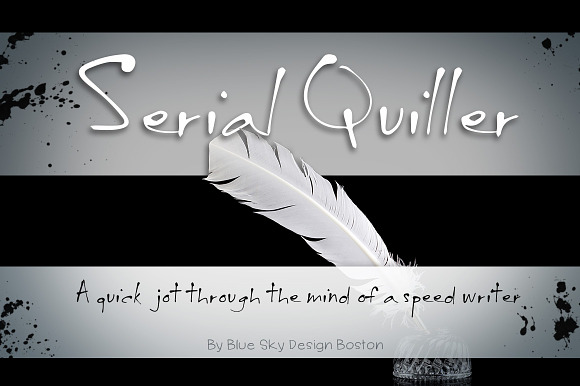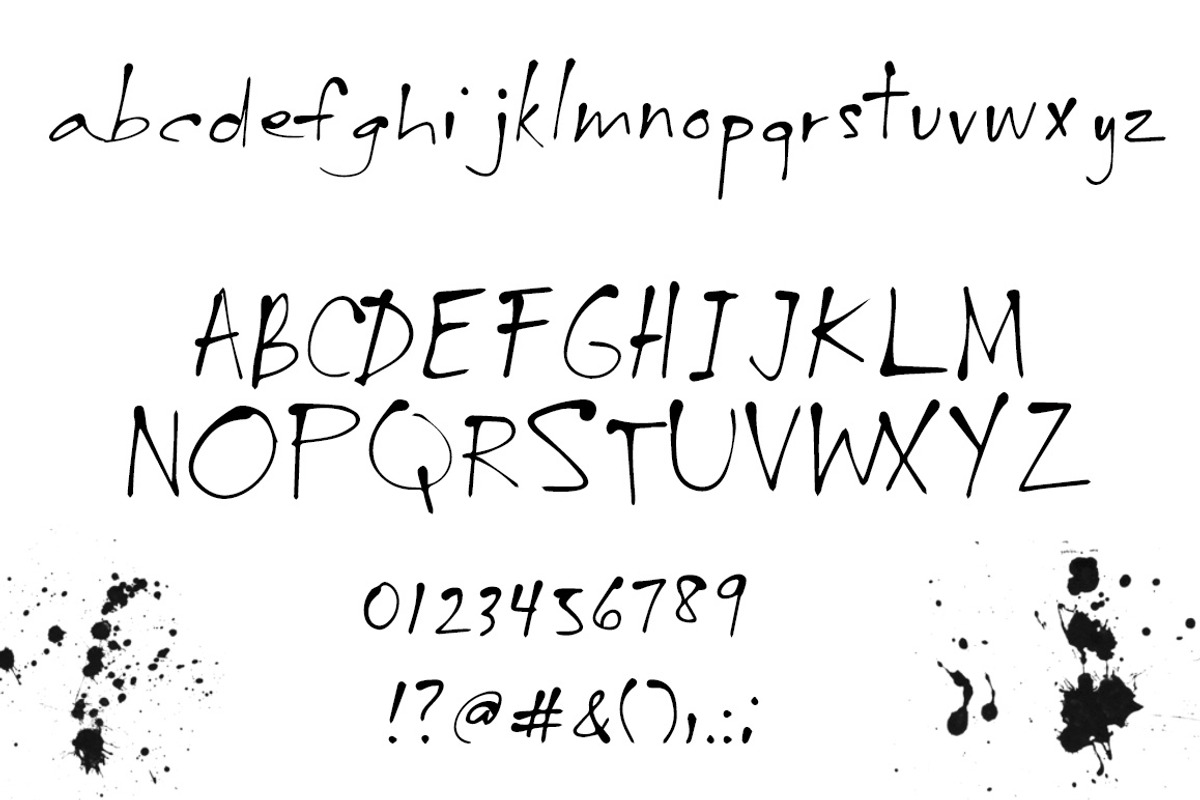
BSD Serial Quiller Font
A quick, handwritten leaky ink font
BSD Serial Quiller Font by Blue Sky Design fits naturally into Branding, posters, packaging, typography.